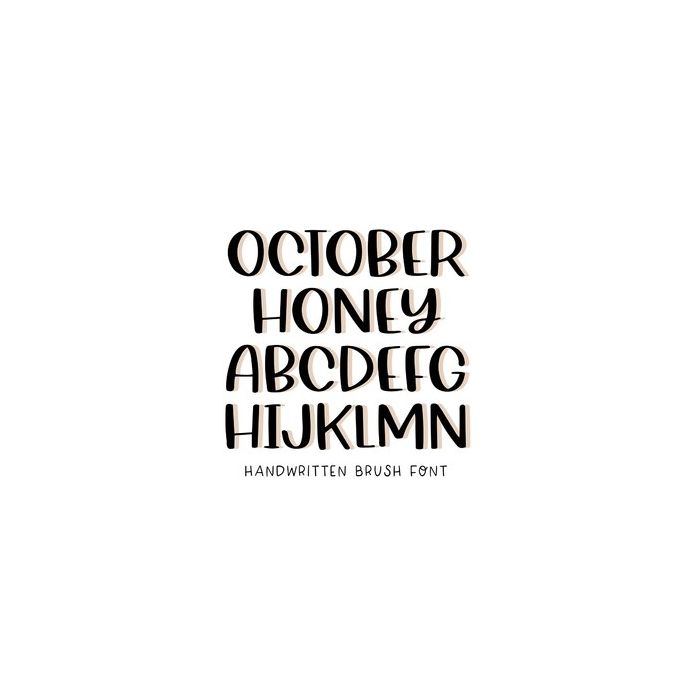
BFC October Honey Brush Handwriting Autumn Halloween Font
October Honey is a casual brush handwriting font. This font is a sibling to Pumpkin Chocolate.